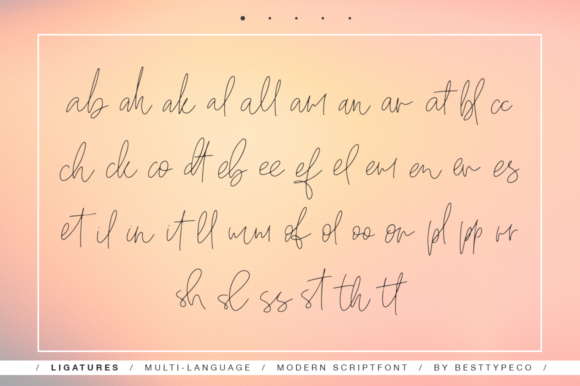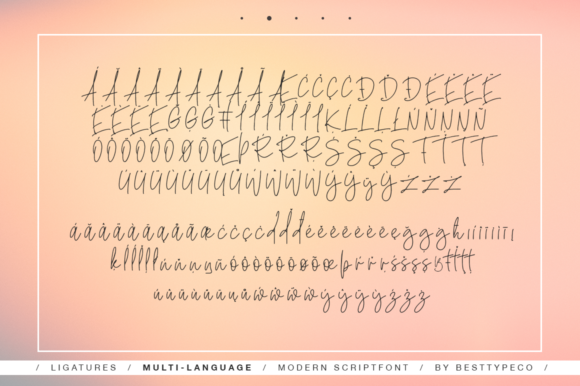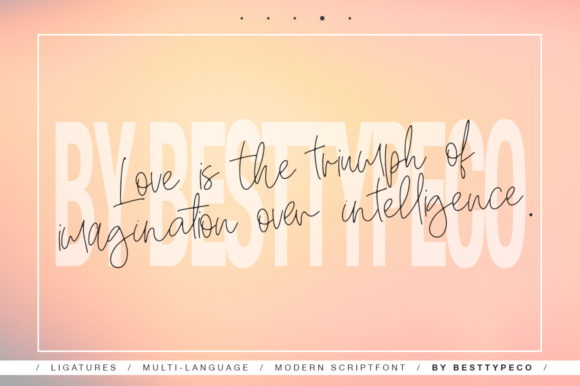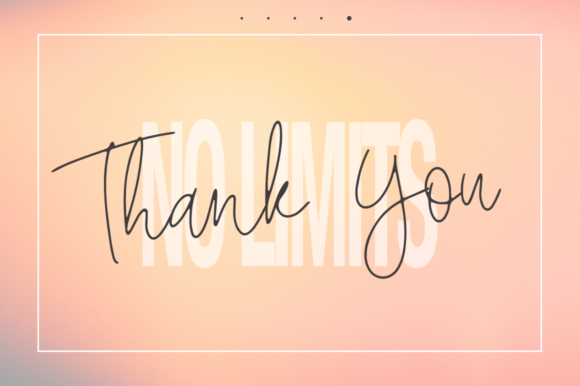
No Limits Font
About No Limits Font
No Limits is a new, fresh, handmade calligraphy font. It’s suitable for greeting cards, branding materials, business cards, quotes, posters, and more!